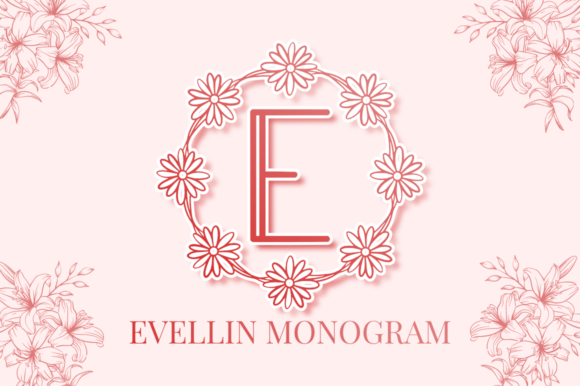
Indulge in the enchanting world of Evellin Monogram, a font designed to captivate and inspire. Its exquisite lines and intricate details evoke a sense of timeless elegance, making it the perfect choice for creating unforgettable wedding stationery, heartfelt greeting cards, and alluring social media posts.
Evellin Monogram's graceful curves and refined flourishes will add a touch of sophistication to your invitations, transporting you and your guests to a realm of romance and celebration. Its versatility extends beyond wedding-themed creations, inviting you to craft stunning stationary art that will leave a lasting impression.
With Evellin Monogram, your words will dance across the page with an air of charm and distinction. Its undeniable beauty will elevate your creative endeavors, whether you're designing invitations, crafting greeting cards, or creating captivating social media content.
Prepare to fall head over heels for Evellin Monogram, a font that seamlessly blends timeless elegance with modern flair. Let its enchanting essence ignite your imagination and create visual masterpieces that will leave a lasting memory in the hearts of all who behold them.